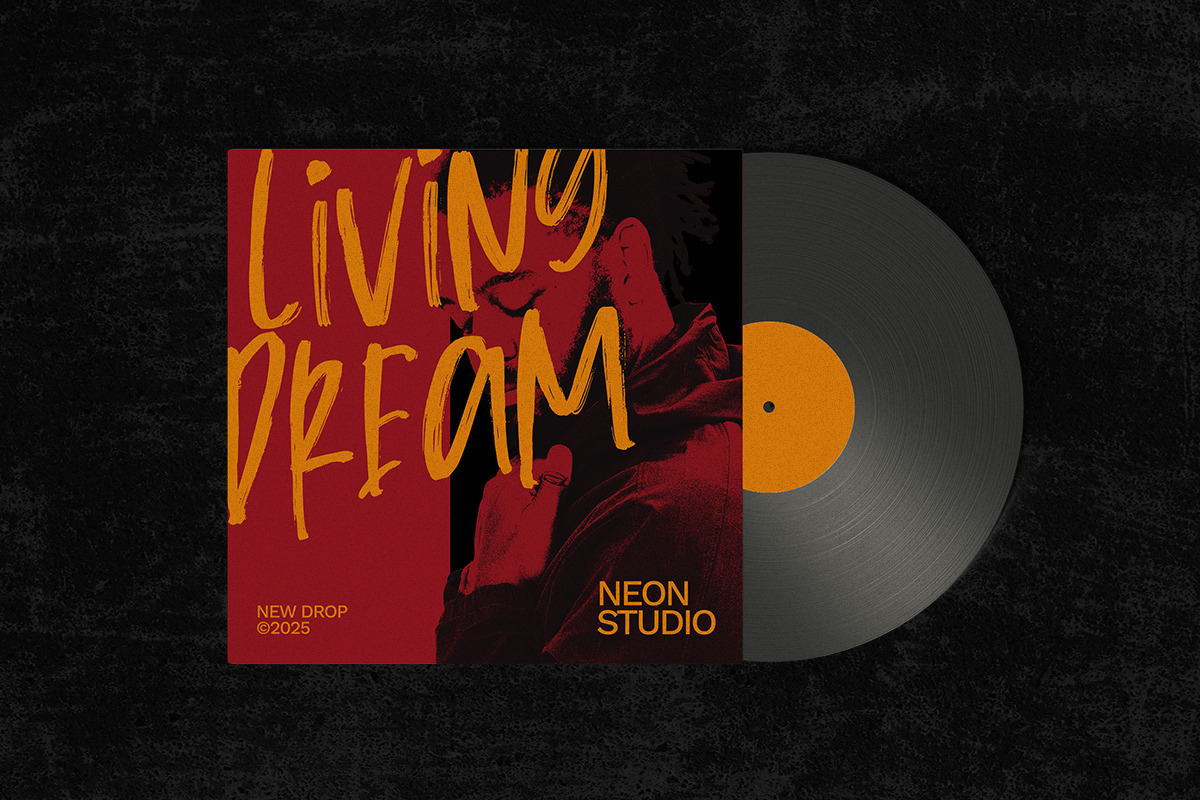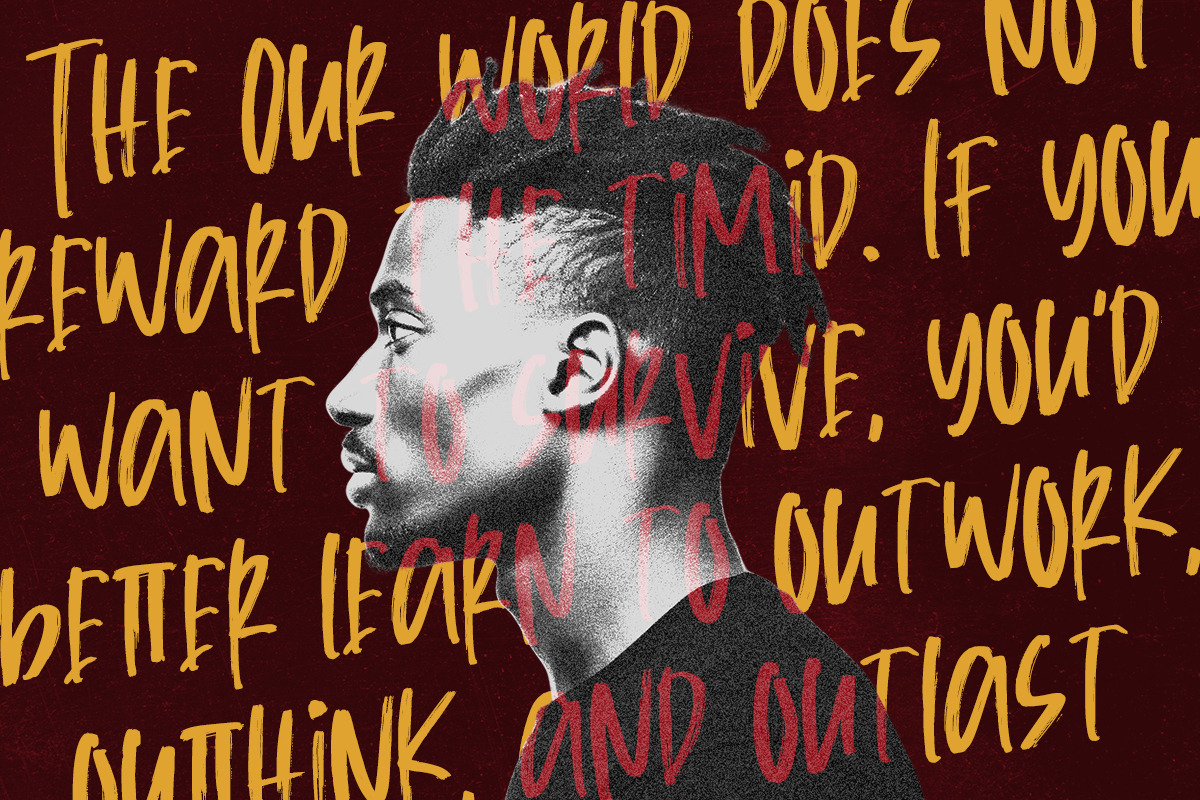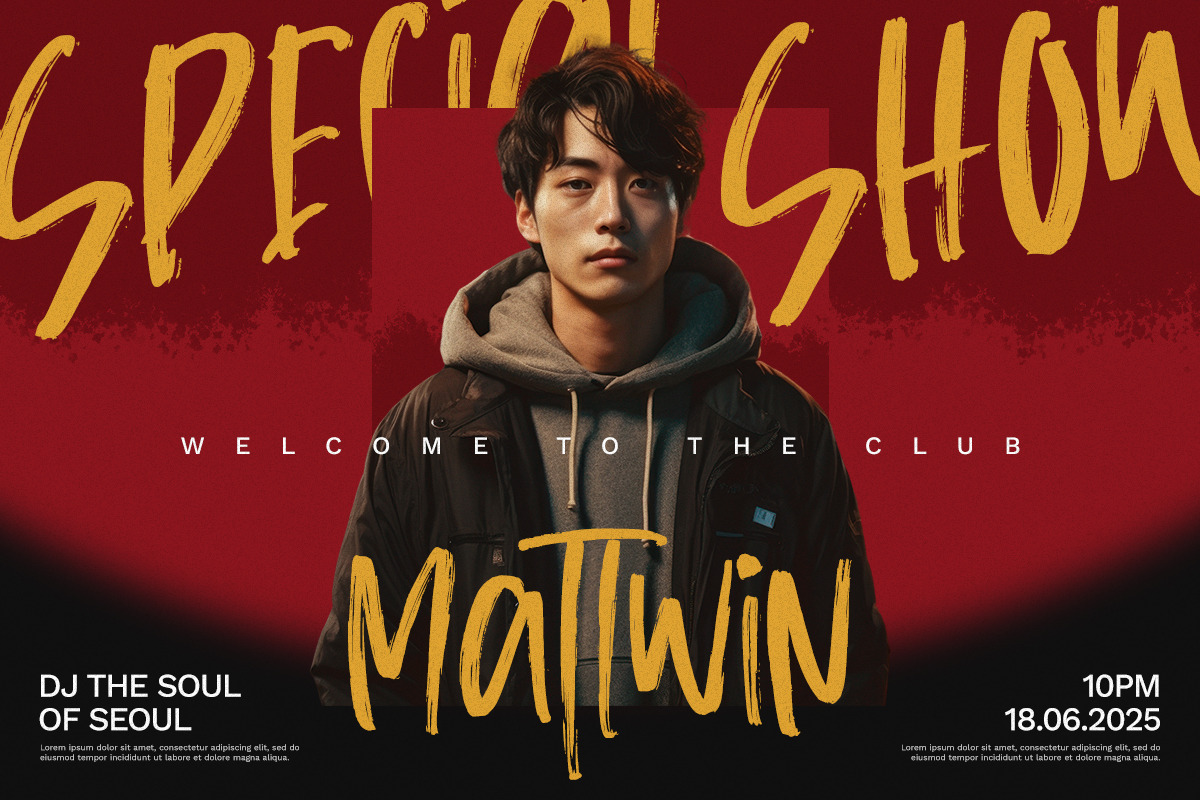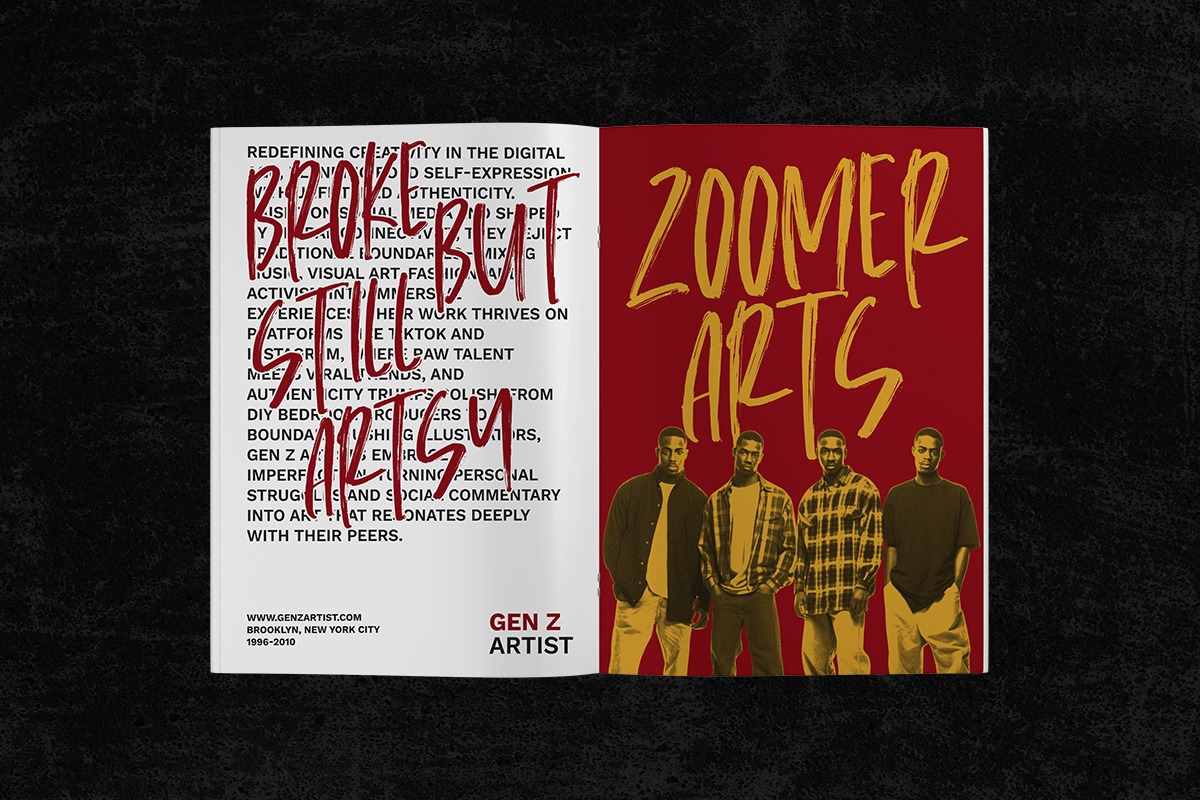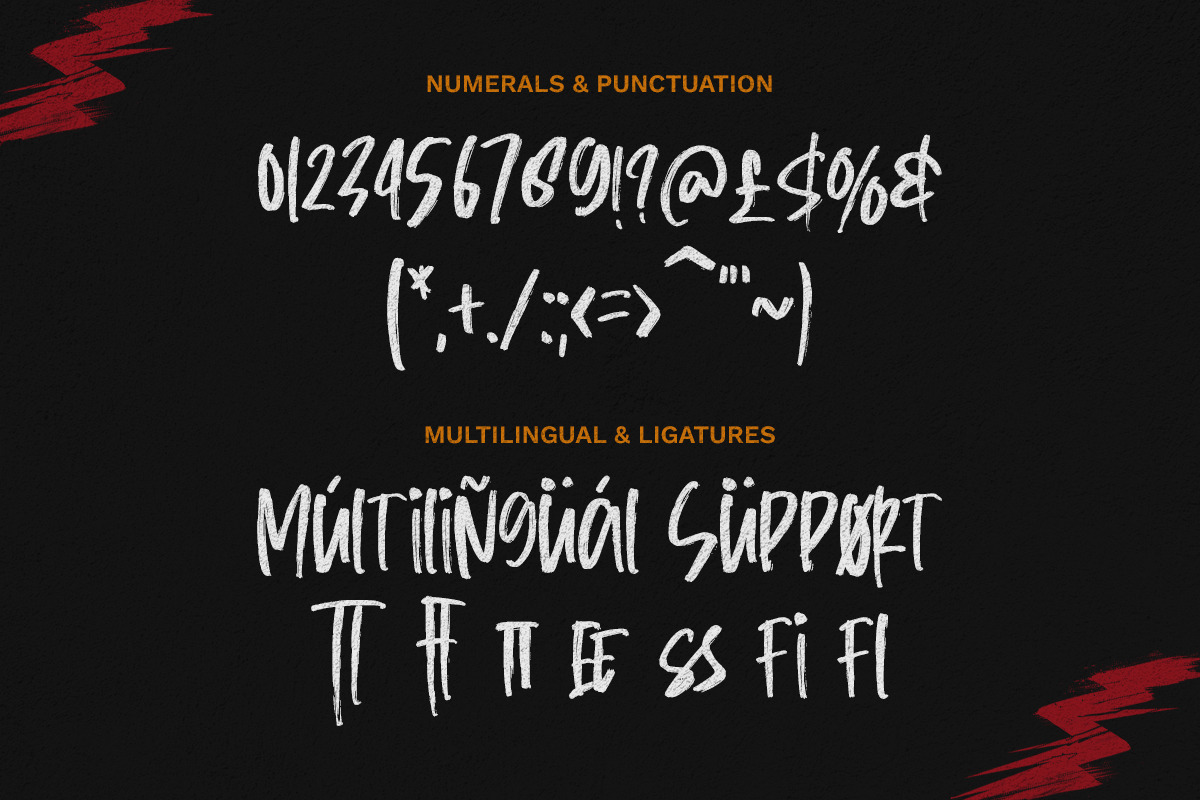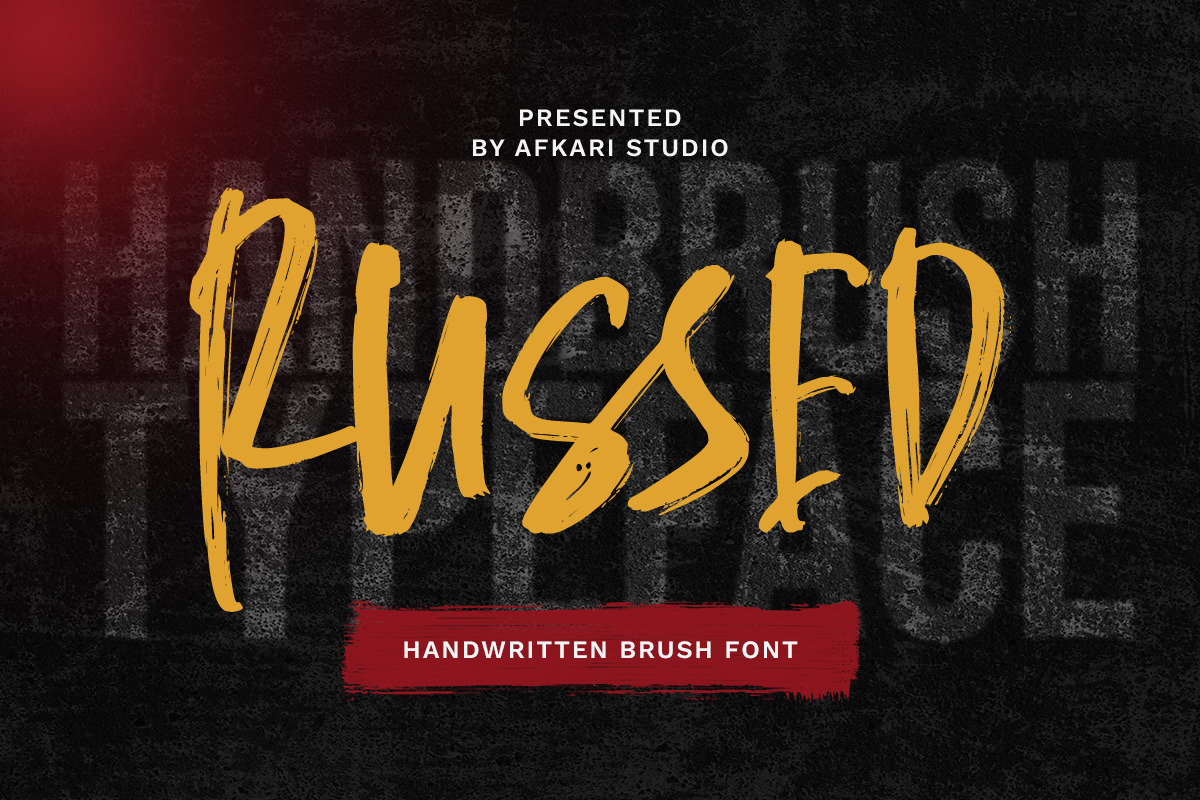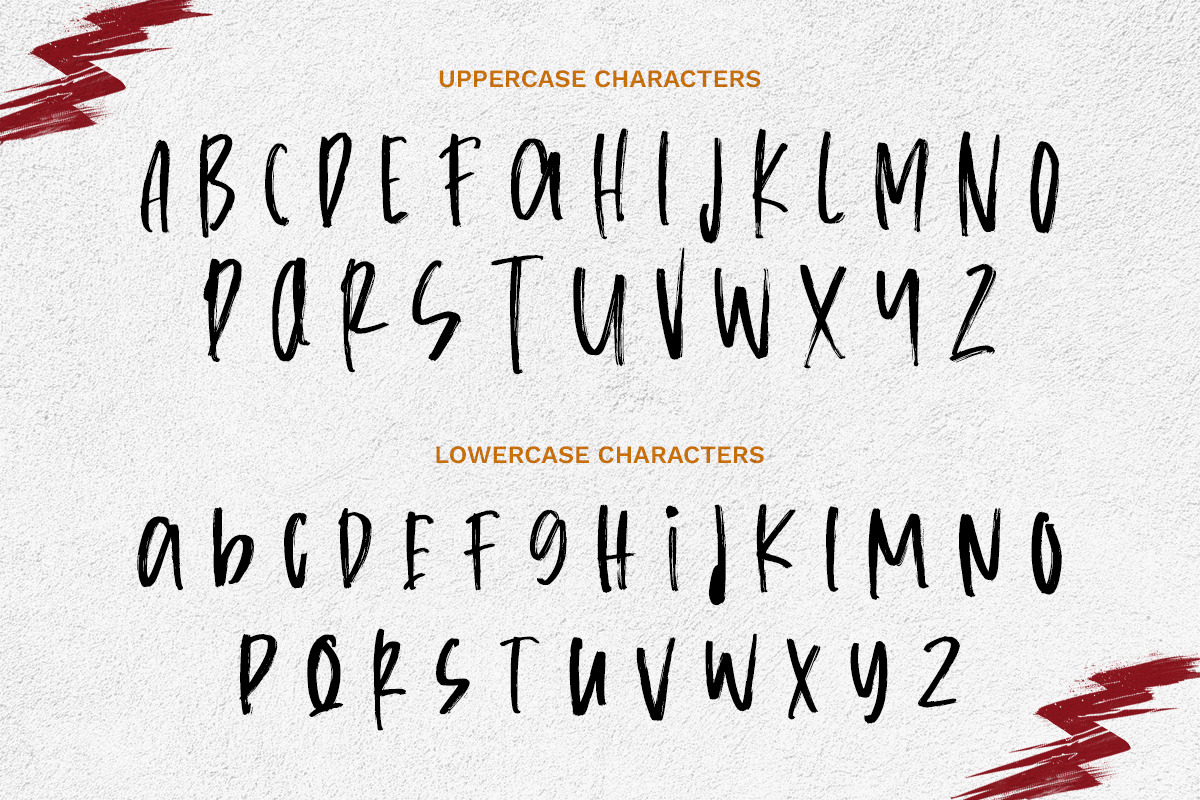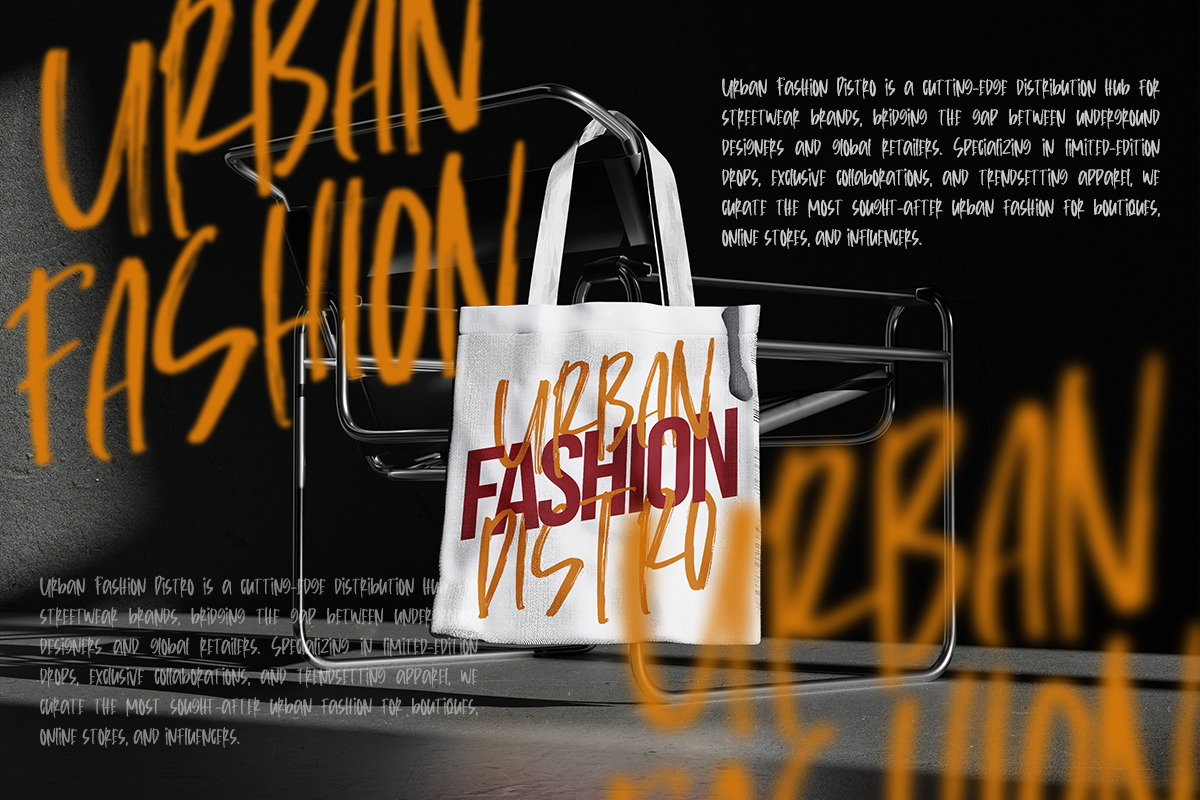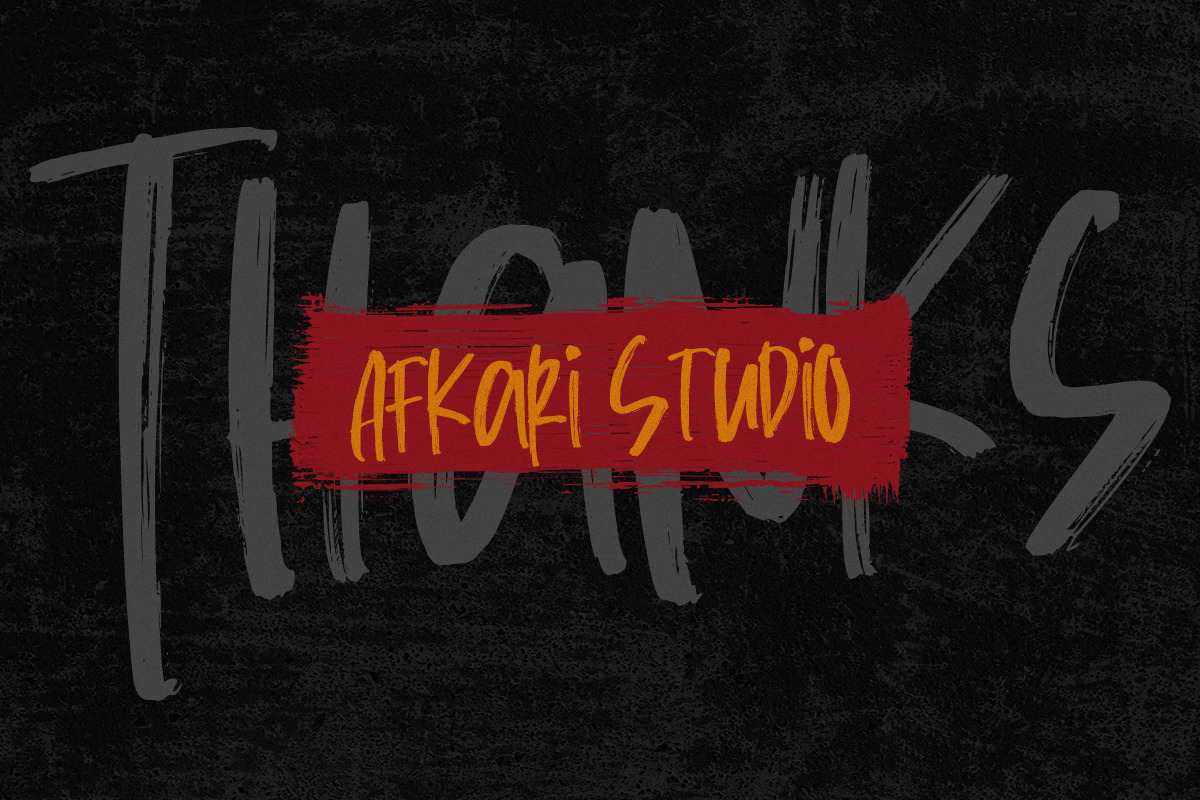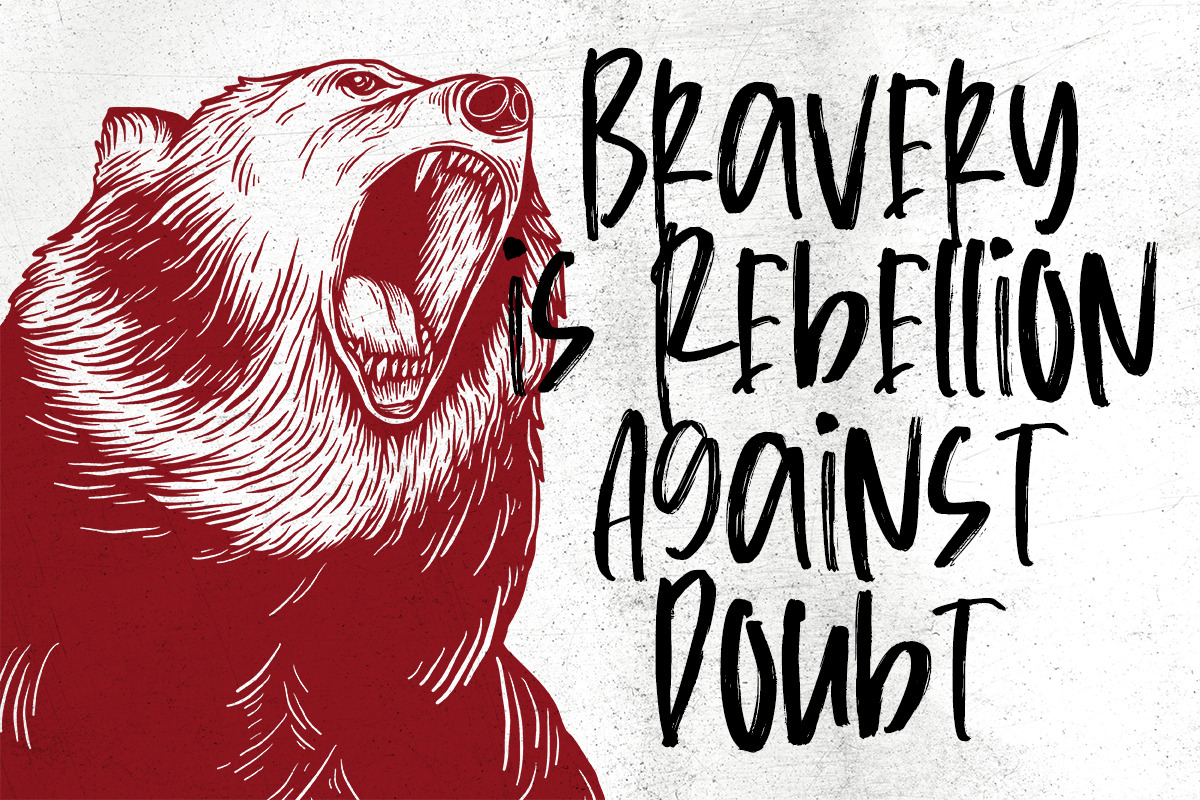
Russed - Handwritten Brush Font
Russed is a bold and expressive handwritten brush font that brings raw energy and personal charm to your designs. Inspired by real brush strokes, Russed delivers an authentic handmade look — perfect for projects that demand both creativity and attitude.
Russed gives your text a dynamic and artistic flair. Its natural flow and textured edges make it feel like the words were painted directly onto the canvas.
- Complete set of uppercase and lowercase letters, numerals, and punctuation marks
- Unique alternates and ligatures for additional character variety
- Multilingual support includes characters like ä, ö, ü, Ä, Ö, Ü, ß, ¿, and ¡
Let your creativity flow with Russed — the perfect handwritten brush font to add personality and strength to your design work!